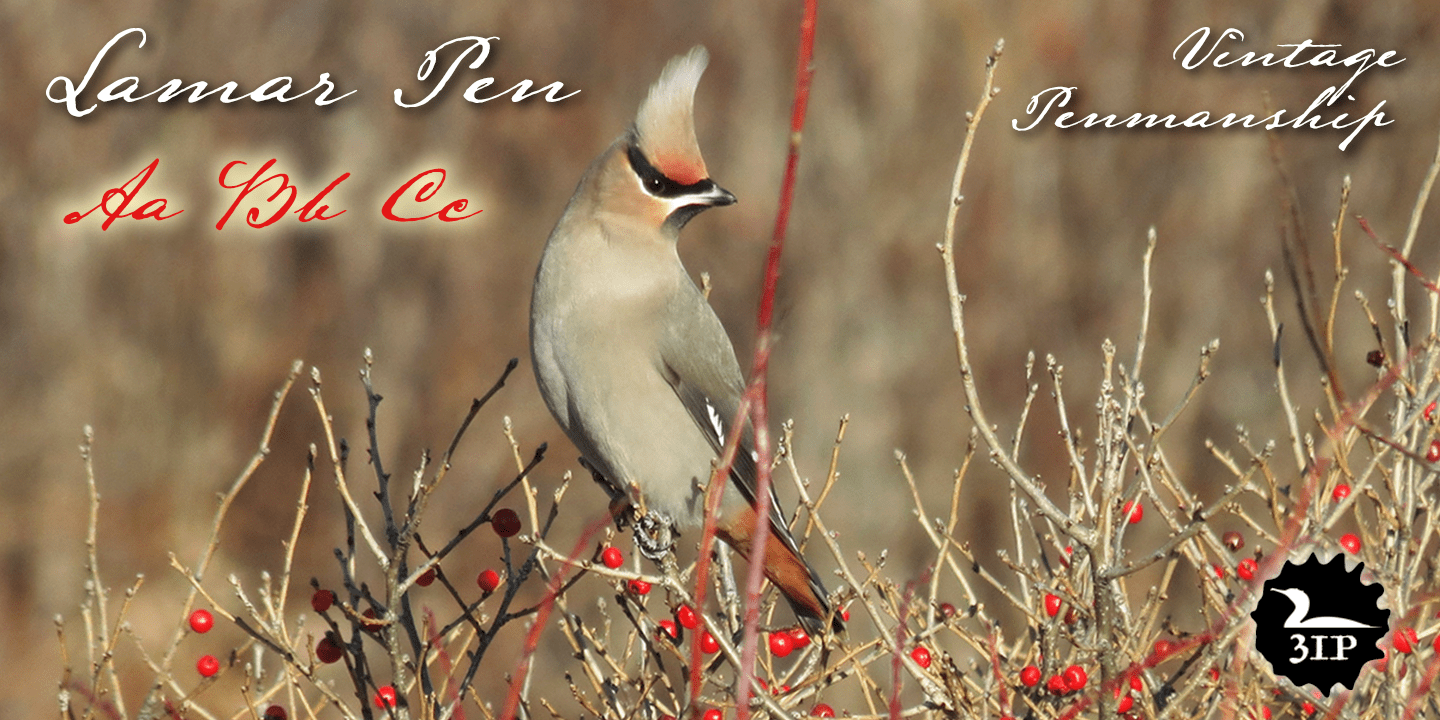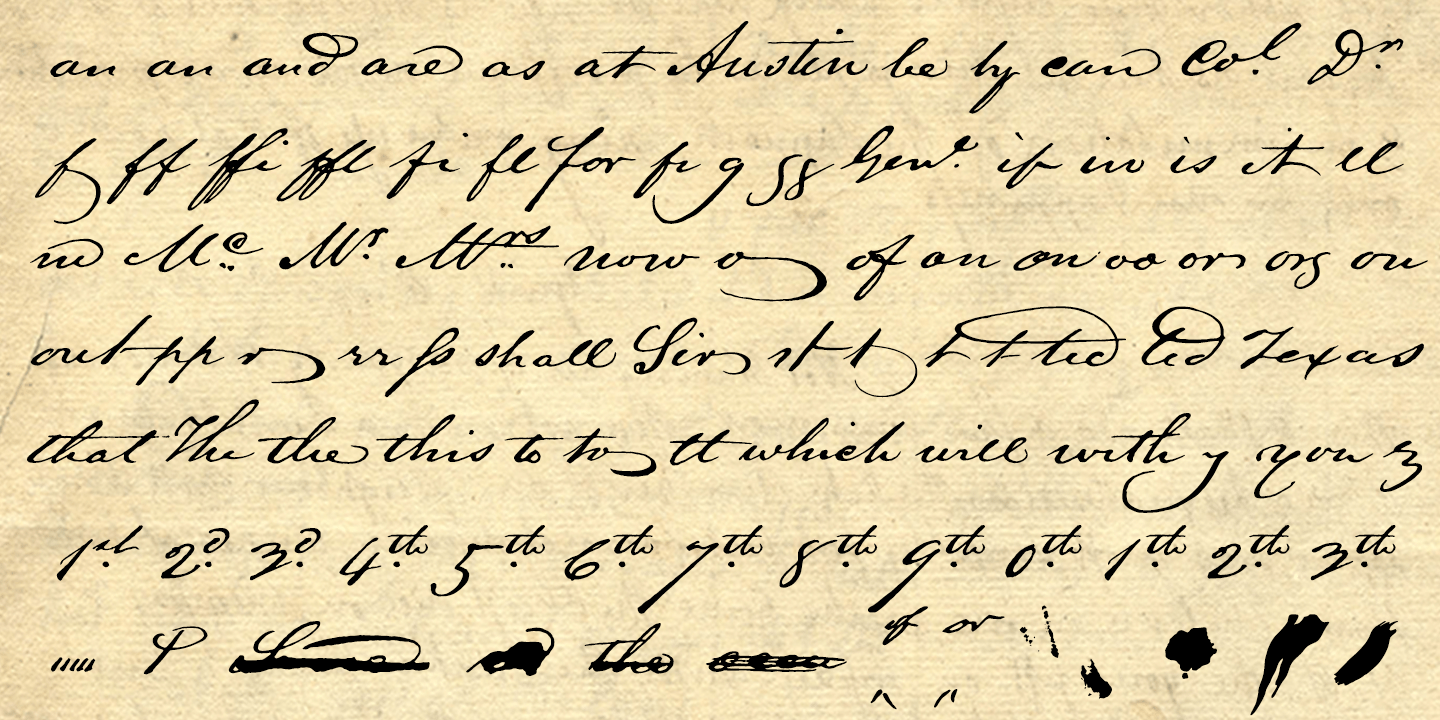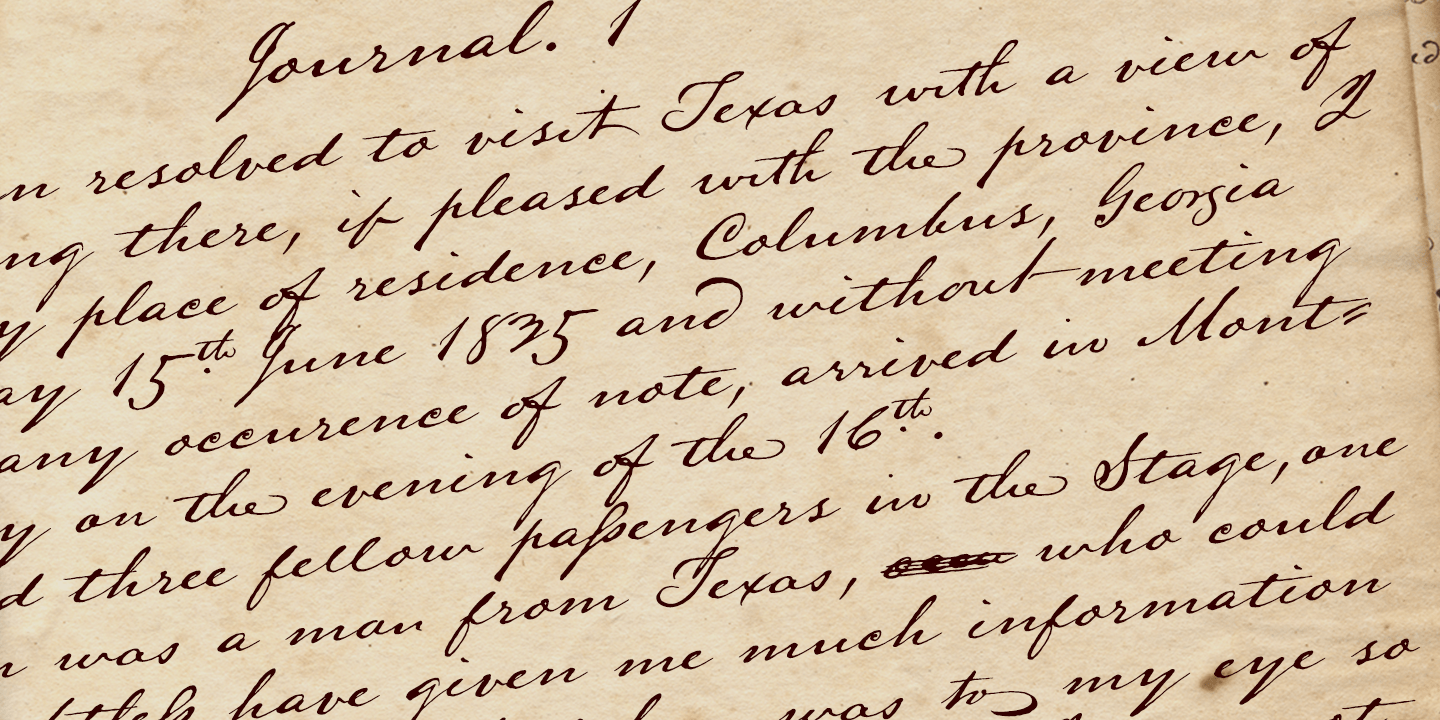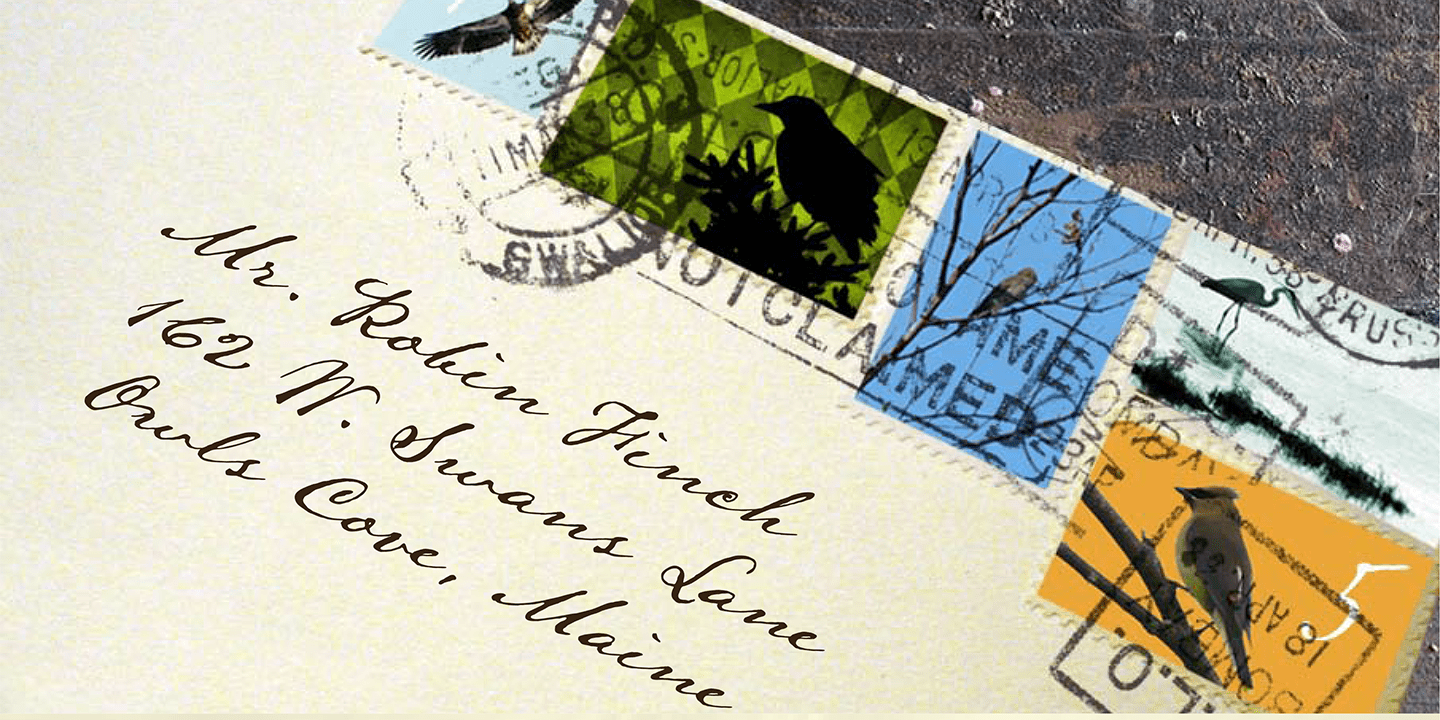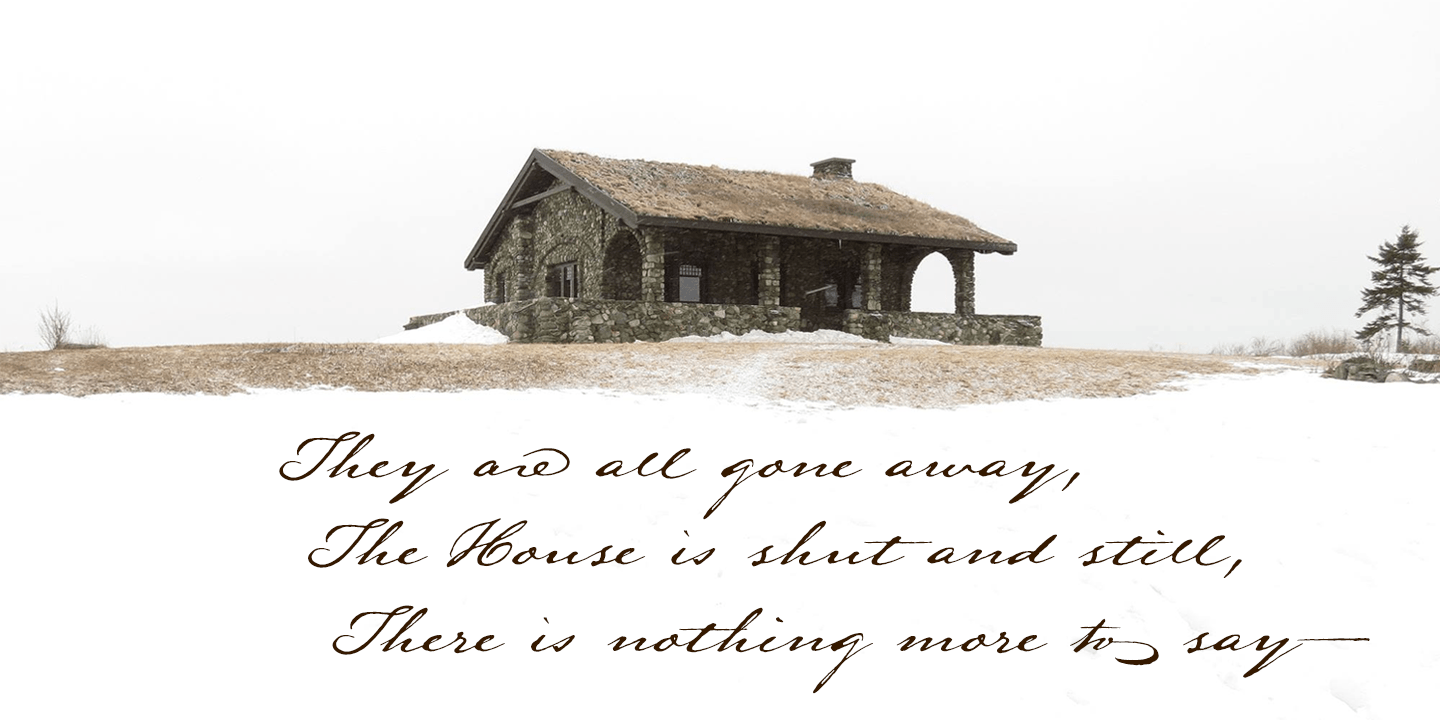
Lamar Pen
Mirabeau Buonaparte Lamar had an exotic name for a historic Texan, but he left his mark beginning in 1836, the year of Texas independence.
Lamar went on to become the young republic's first elected vice-president (to President Houston) and second president -- and to author a number of interesting letters in his elegant, stylish hand. (Mirabeau B. Lamar grew up a well-to-do southerner from Georgia, and his penmanship shows it.) One of the most interesting aspects of designing old handwriting fonts, to me, is pausing to reflect on the actual moment that the letter-writer is sitting at his or her desk or table, pen in hand, putting thoughts to words -- 150 to 200 years ago.
Has a complete character set, and plenty more.